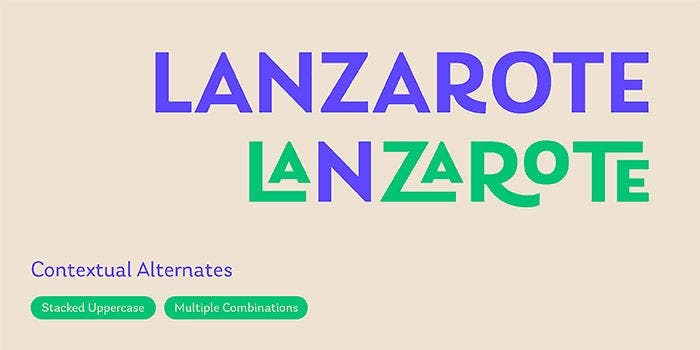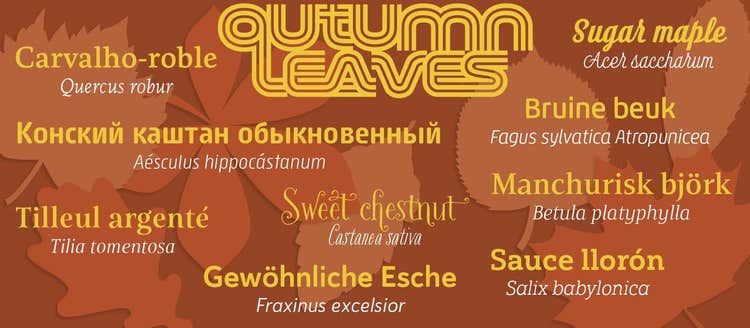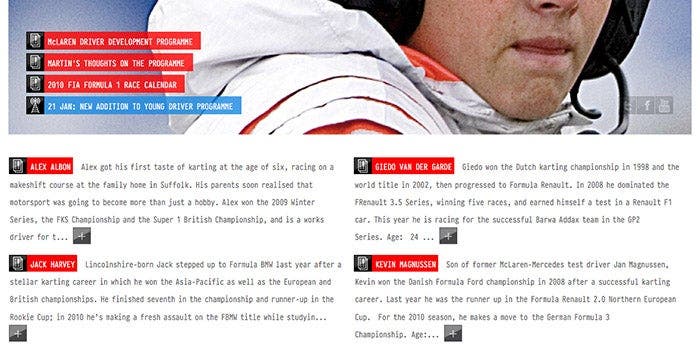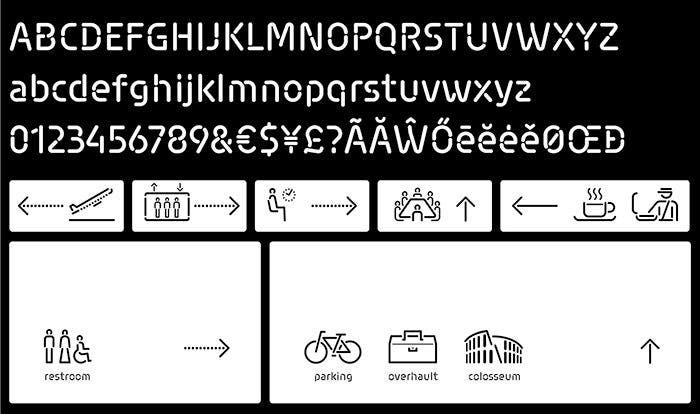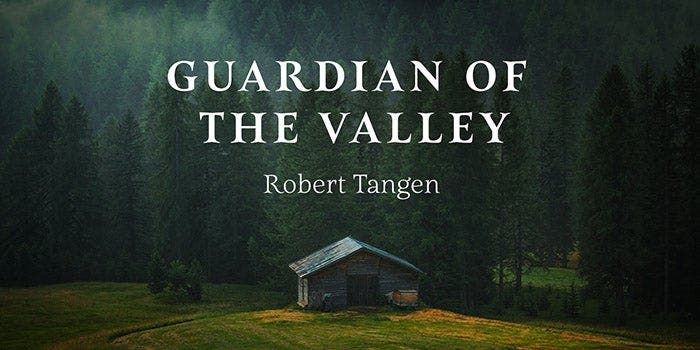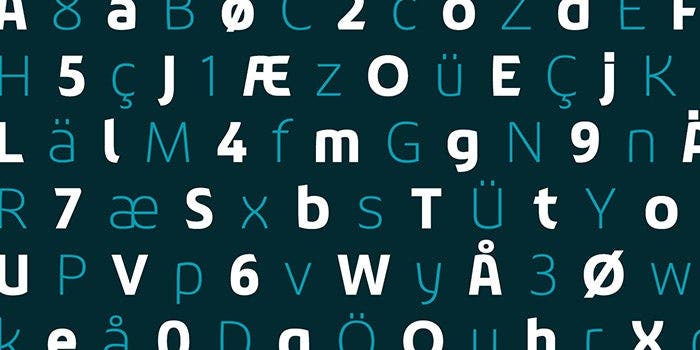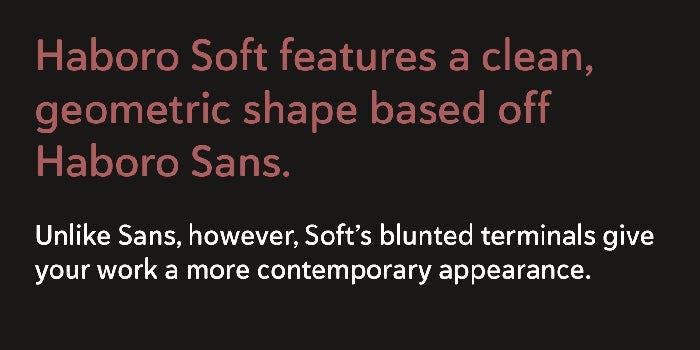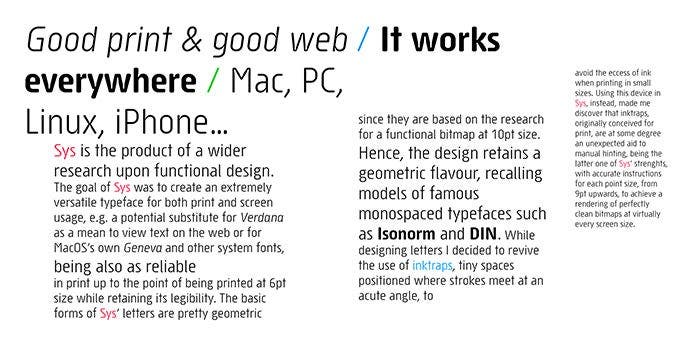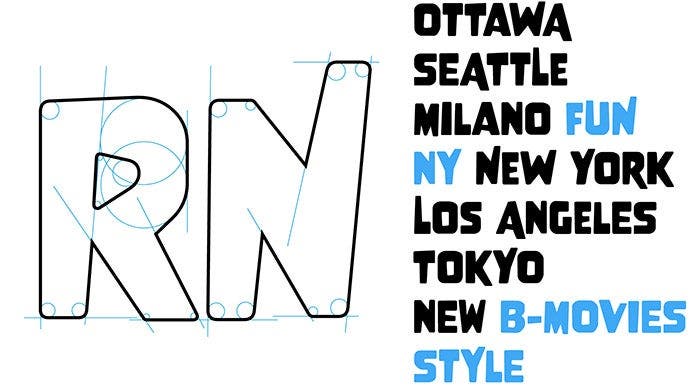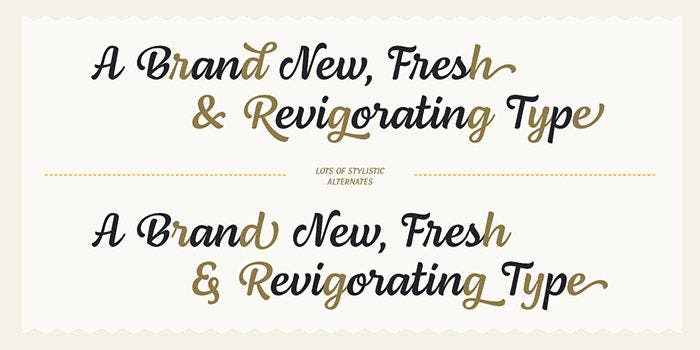
Just like the brightly colored leaves falling from the trees, almost 600 eclectic fonts land in your Adobe Creative Cloud subscription at no extra cost. Three foundries recently joined Adobe Fonts with exciting typefaces (FSD, Tart Workshop, and Nova Type Foundry), and Insigne Designs added 17 expansive type families.
Fabrizio Schiavi brings FSD to Adobe Fonts
Italian multidisciplinary designer Fabrizio Schiavi is equally at ease engineering complex type systems for coding and system fonts as he is drawing arresting display faces, which he releases under his FSD imprint.
PragmataPro’s narrow letters turn it into an economic monospaced typeface fit for programming as well as body copy.
With PragmataPro, Fabrizio wanted to design the ultimate font for coding, math, and engineering, optimized for screen rendering. Thanks to its condensed features and absence of line spacing, you can fit a maximum amount of code on a minimal surface. PragmataPro Fraktur reinvents the narrow monospaced sans serif as a sleek, modern black letter.
The combination of narrow, constructed letterforms and soft stroke endings make Sys look both technological and friendly.
Sys was developed to work well at very small sizes. Thanks to painstaking hinting, the condensed sans serif can be used to replace TrueType system fonts. Its rounded stroke endings give it a friendly look. SysFalso — originally the corporate typeface for insurance broker YU SpA — was hand drawn on Sys’s skeleton for a more fun, casual interpretation.
Nove’s carefree attitude originates from a clever construction consisting of circles in various sizes.
Don’t let Nove’s bouncy, joyful characters fool you. The display face, inspired by B-movie typography, was drawn according to a complex geometry. Siruca was developed for building wayfinding systems. Its stencil letters with rounded stroke endings are ideal for painting or routing in an architectural environment.
Thanks to clever OpenType substitution technology, typing specific words automatically creates the corresponding icons.
The strictly geometric logo of modular building solutions company Algeco was the jumping-off point for Eco’s idiosyncratic letterforms. Virna is a powerful multiline display face originally commissioned for mtv.it’s rebranding in late 2003. It is the first Western typeface whose letters connect in both horizontal and vertical directions.
Sweet hand-drawn fonts from Tart Workshop
Crystal Kluge’s signature style was part of the emergence of the popular “modern calligraphy” trend. The illustrator and lettering artist releases fonts based on her hand-drawn alphabets under the Tart Workshop banner. Her designs are ideally suited for cards and invitations, books and stationery, branding and packaging, and much more; anything that needs a hand-made, slightly vintage look.
Fredericka The Greatest gives your designs an authentic, artisanal look.
If regular fonts feel too clean and strict to you, Chelsea Market is a loose rendering of a geometric sans including an outline variant. Another option is Fredericka The Greatest, a roughly sketched serif display face with dramatic contrast between thick and thin strokes.
All-caps titles and logos become exciting and fun with Seasoned Hostess.
Lively penmanship meets ink lettering in the all-capitals display faces Seasoned Hostess and Silverstein. Bookeyed is a suite of narrow serif alphabets handwritten with antique French nibs dipped in walnut ink. The fonts come in upright and italic styles, in two widths, and with different amounts of ornamentation.
The Bookeyed suite of hand-drawn serif fonts strikes the perfect balance between formal and casual.
San Rafael is a breezy script with lovely curled flourishes, Aya Script’s round letters connect to form playful strings of words.
New type from Nova Type Foundry
The last in our list of new foundries added to your Adobe Creative Cloud subscription is the brand-new Portuguese Nova Type Foundry, founded by Joana Correia. This graduate from the renowned Typeface Design MA programme at the University of Reading injects Latin flair in her exacting design practice, producing warm and approachable type families.
Laca’s stacked capitals create arresting headlines and instant logos.
This approach is clearly apparent in the gently curved details of Laca’s lively letterforms. The comely display sans has many special features like initial and final shapes, nesting capitals, and alternate characters. Laca Text offers improved legibility in smaller sizes by toning down these design traits and having a larger x-height and open counters.
Sitting somewhere between a forceful italic and a stylized brusch script, Artigo Display is sure to turn heads.
Artigo interprets the handwritten roots of the first roman types as a contemporary multipurpose serif face with dynamic italics. The human hand is even more present in its companion Artigo Display, an energetic italic for confident headlines and titles.
If you prefer an even more classical style, the graceful Belda applies the principles of the roman capitals’ calligraphy to a contemporary framework. Civane’s delicately curved strokes are also inspired by chiseled inscriptions on the monuments of great civilizations.